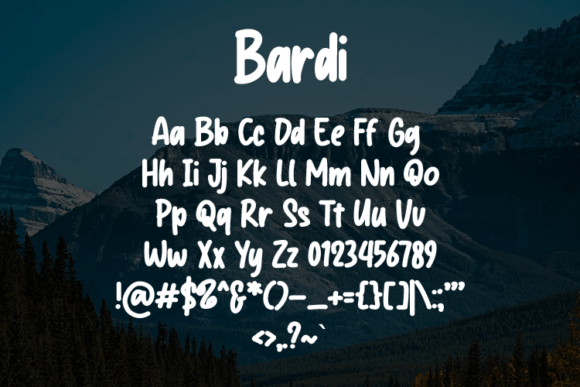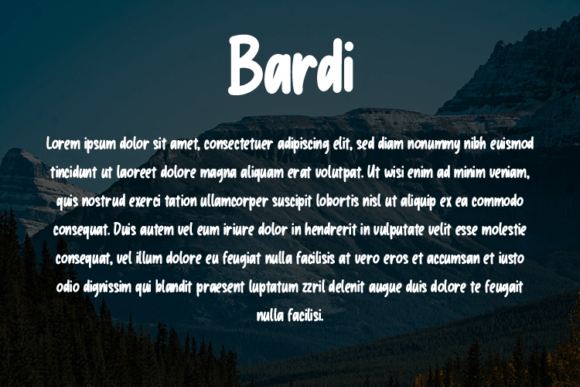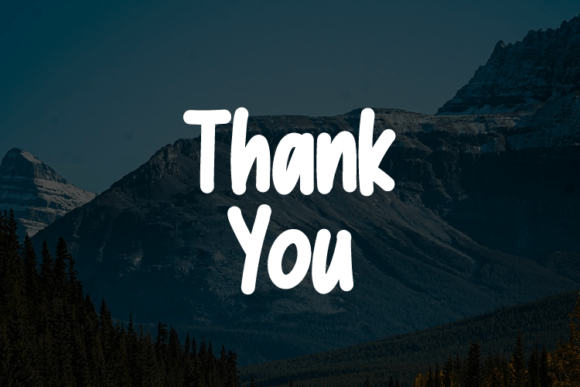
Unleash the Spirit of Adventure with Bardi Font
Are you looking for a typeface that can transport your audience to the great outdoors? Do you want to evoke a sense of exploration and adventure in your designs? Look no further than Bardi Font, a rugged yet approachable display font that’s perfect for outdoor and lifestyle storytelling.
The Inspiration Behind Bardi
Bardi Font is designed to capture the spirit of exploration and the beauty of the natural world. Its tall, slender silhouette and soft, hand-drawn edges give it a unique and distinctive look that’s reminiscent of a handwritten note from the heart of the mountains. The font’s creator aimed to strike the perfect balance between organic warmth and steady strength, making it an essential tool for designers who want to convey a sense of adventure and freedom.
Key Features of Bardi Font
So, what makes Bardi Font so special? Here are some of its key features:
- Tall and slender silhouette: Bardi’s vertical proportions make it perfect for headlines and titles that need to stand out against majestic landscapes and cinematic backgrounds.
- Soft, hand-drawn edges: The font’s soft edges give it a warm and organic feel that’s perfect for designs that need to evoke a sense of authenticity and adventure.
- High-contrast legibility: Bardi’s high-contrast design makes it easy to read, even at small sizes, making it perfect for use in a variety of design applications.
- Natural rhythm: The font’s natural rhythm and flow make it perfect for use in long-form content, such as travel blogs and documentary titles.
Use Cases for Bardi Font
Bardi Font is a versatile typeface that can be used in a variety of design applications, including:
- Travel blog headers: Use Bardi to create eye-catching headlines that transport your readers to exotic destinations.
- Adventure apparel branding: Bardi is perfect for outdoor gear and apparel brands that want to evoke a sense of adventure and exploration.
- Documentary titles: Use Bardi to create compelling title sequences for documentaries that explore the natural world.
- Social media content: Bardi is perfect for creating engaging social media content that celebrates the great outdoors.
Designing with Bardi Font
When designing with Bardi Font, here are a few tips to keep in mind:
- Use it against a natural background: Bardi is designed to shine against majestic landscapes and cinematic backgrounds, so make sure to use it in a way that takes advantage of this.
- Experiment with different sizes: Bardi’s high-contrast design makes it easy to read at a variety of sizes, so don’t be afraid to experiment with different font sizes to create visual interest.
- Pair it with complementary fonts: Bardi pairs well with a variety of fonts, so don’t be afraid to experiment with different pairings to find the one that works best for your design.
Bardi Font is a powerful tool for designers who want to evoke a sense of adventure and exploration in their work. Its unique combination of ruggedness and approachability makes it perfect for outdoor and lifestyle storytelling, and its high-contrast legibility and natural rhythm make it easy to read and use in a variety of design applications. Whether you’re designing for a wilderness retreat or a high-end camping brand, Bardi brings an authentic, adventurous voice to every layout.